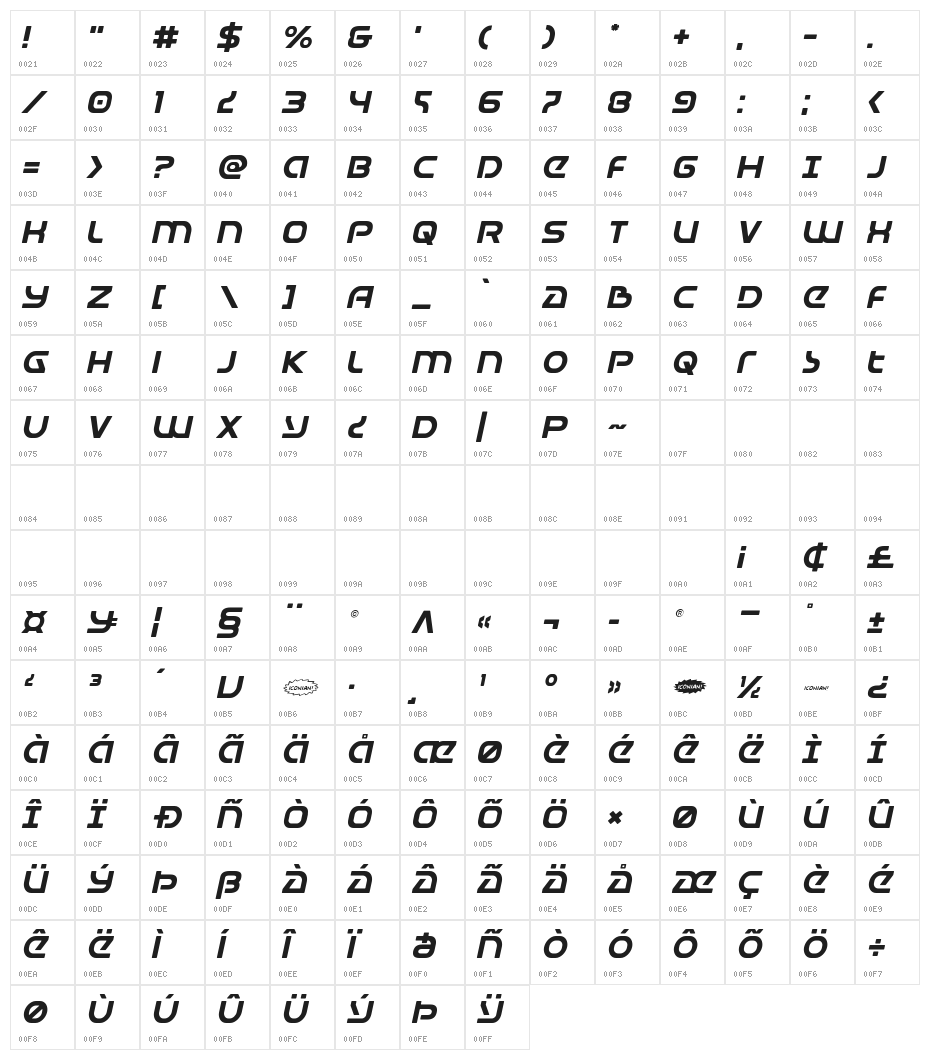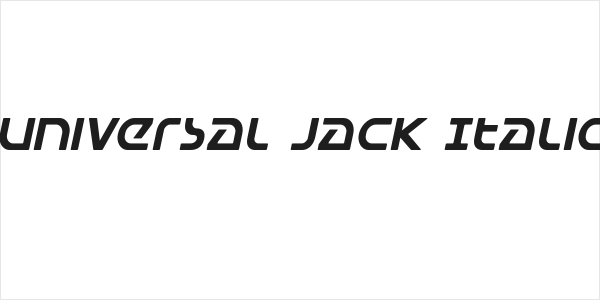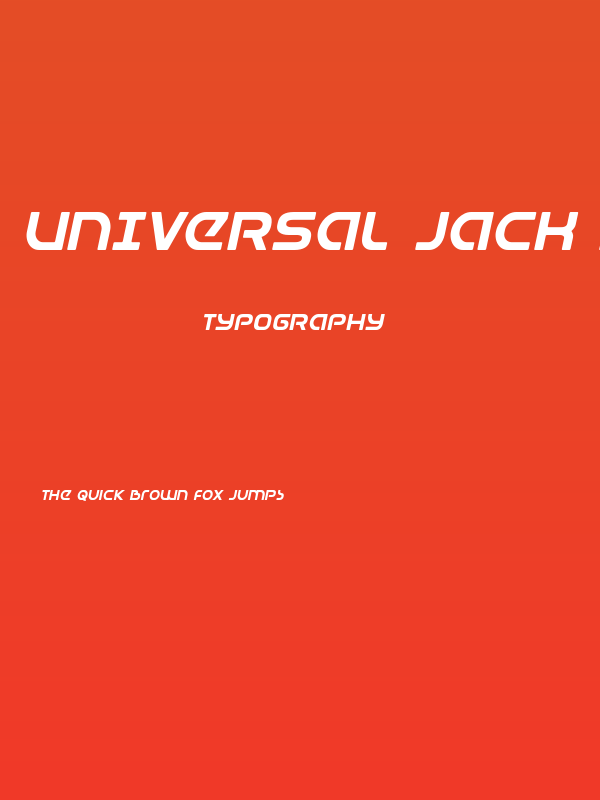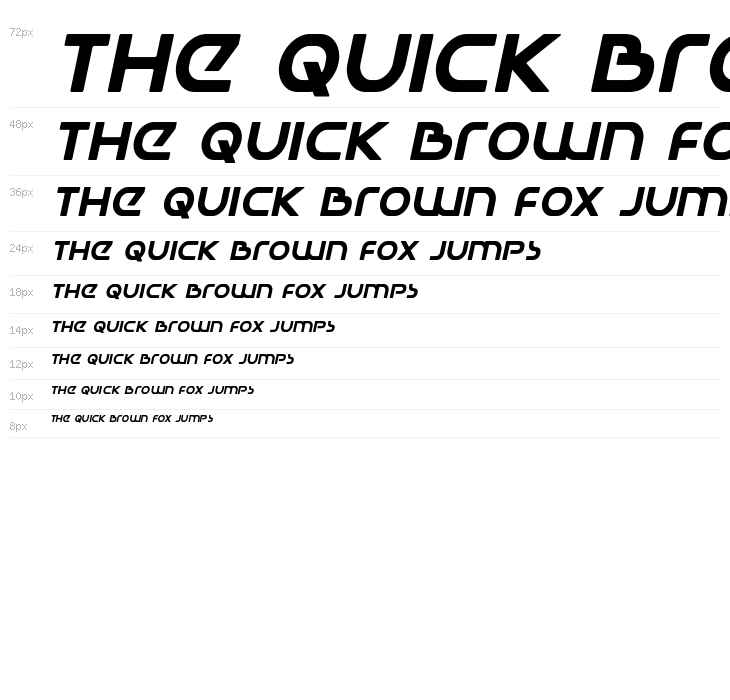
Universal Jack Italic Font
Universal Jack Italic Description
This font features a dynamic and modern italic style with a sleek, futuristic appearance. The characters are slightly slanted, giving a sense of motion and speed. The strokes are smooth and consistent, with rounded edges that add a touch of softness to the overall design. The uppercase and lowercase letters maintain a uniform style, ensuring readability while still offering a unique aesthetic. The numbers and special characters are designed to match the letters, providing a cohesive look across all elements. This font is ideal for projects that require a contemporary and energetic feel.
Use CaseHeadlines, Logos, Advertisements
Proposed ProjectsIdeal for branding, sports team logos, tech company advertisements, and modern web design.